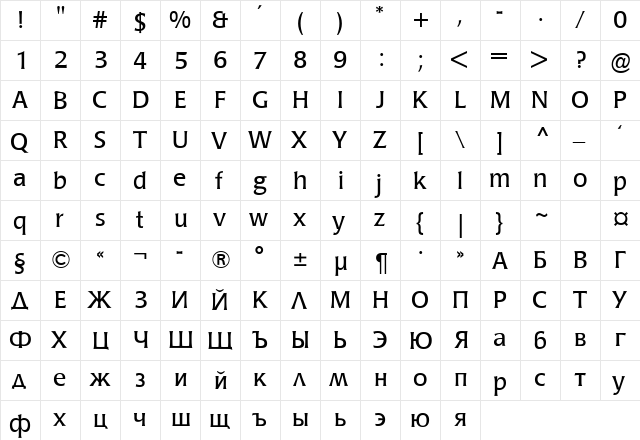
LaudatioC Regular
| Designer | Friedrich Poppl (1982) | Fixed by Viktar Autushka, Miensk, Bielarus' |
Design Context for LaudatioC Typeface
LaudatioC takes a measured approach to typography — its balanced proportions and neutral character make it a reliable workhorse for both digital and print work.